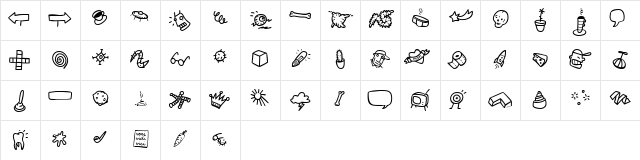
Atman dings Free Font
Atman dings
Style: dings
Atman Family
Atman dings
Design Context for Atman
Atman is a composed and adaptable typeface that performs quietly and consistently across a wide range of design contexts.